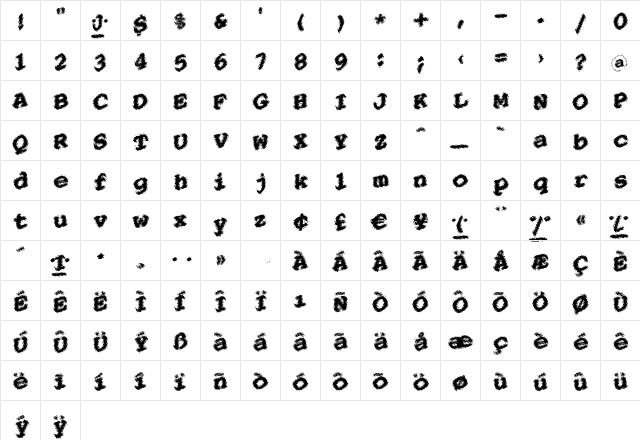
Pointersisters Regular
Design Context for Pointersisters Typeface
Pointersisters is a composed and adaptable typeface that performs quietly and consistently across a wide range of design contexts.